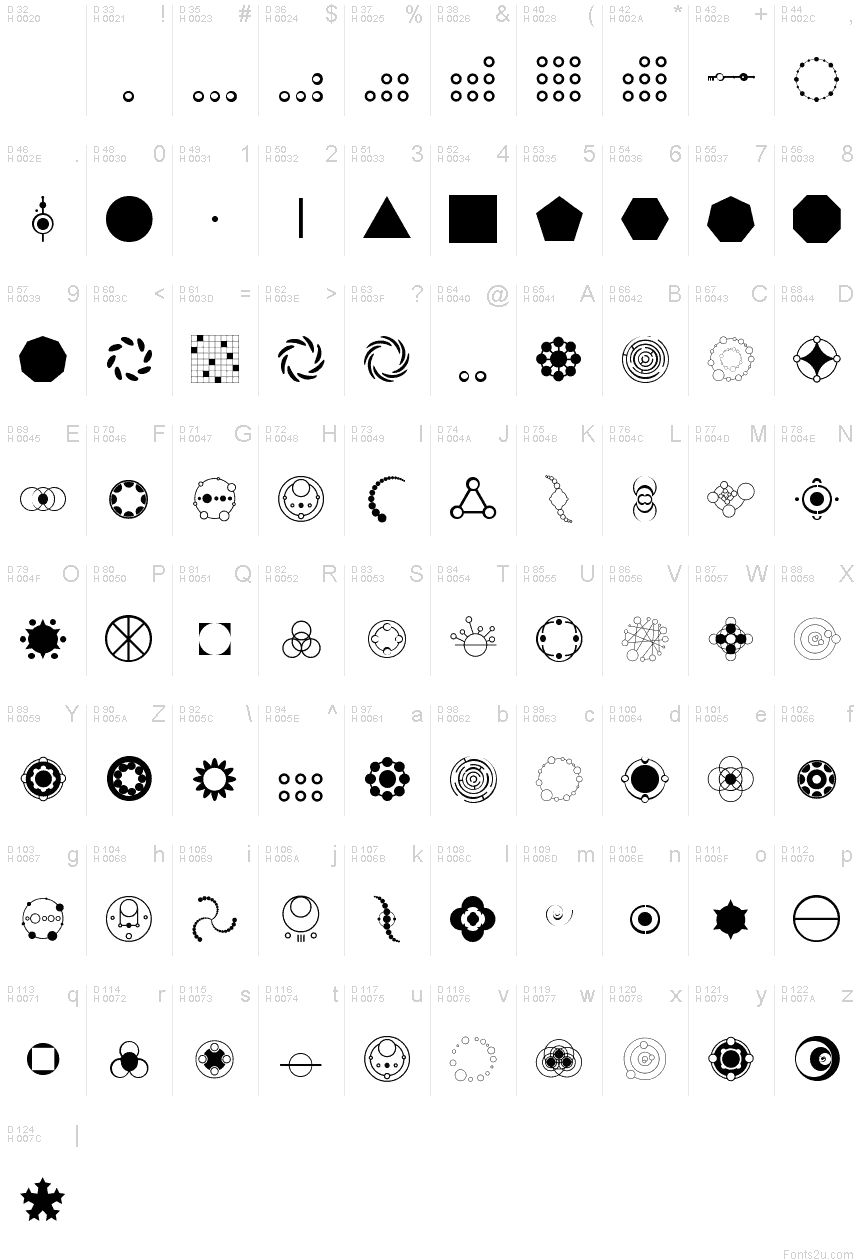
Crop Circle Dingbats
Crop Circle Dingbats font by David Hirmes turns abstract circle patterns and planetary shapes into a set of crisp, sci‑fi symbols, and it’s available as a free font. The mix of hollow rings, solid black orbs, and geometric starbursts gives each glyph a mysterious, crop‑field energy that still feels clean and vector‑sharp. Used large, the forms read almost like logos or emblems, instantly setting a speculative or cosmic mood.
This free font works especially well for science fiction book covers, experimental posters, album art, game interfaces, themed logos, flyers, and web banners. Because the icons are mostly circular and evenly weighted, they sit comfortably next to simple sans serif text or minimalist grids. Set the symbols oversized for impact, or repeat them in smaller sizes to build patterned borders, buttons, or navigation elements that feel otherworldly but still orderly.